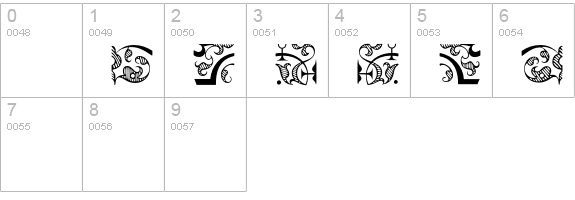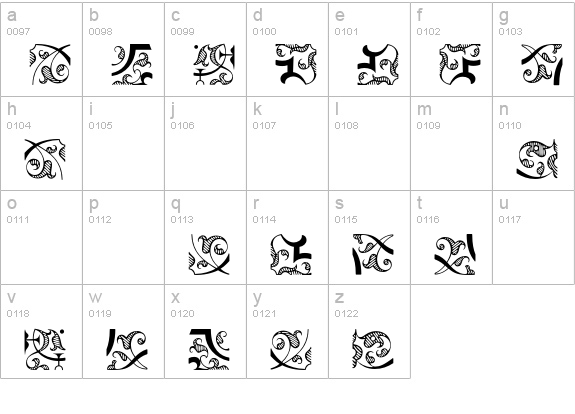
FleuronTwelve Font Details
FleuronTwelve is a beautifully crafted font that exudes elegance and sophistication. With its intricate details and graceful curves, this font is perfect for adding a touch of refinement to any project. Whether you're designing invitations, creating a logo, or crafting a stunning poster, FleuronTwelve is sure to elevate your work to the next level. What makes FleuronTwelve even more appealing is the fact that it is available for free download at FontsMarket.com. Yes, you read that right - this exquisite font can be yours at no cost! Don't miss out on the opportunity to add FleuronTwelve to your font collection and start creating stunning designs today.